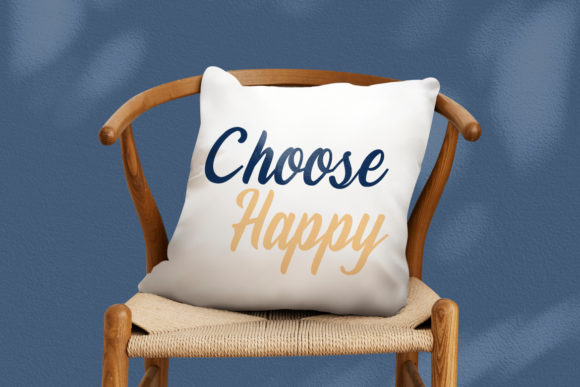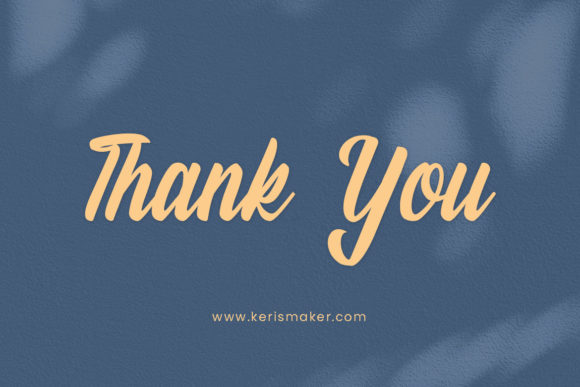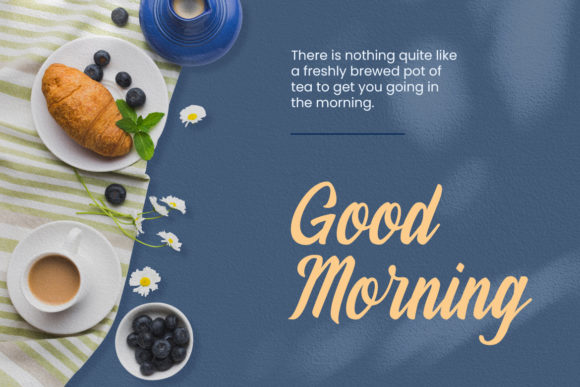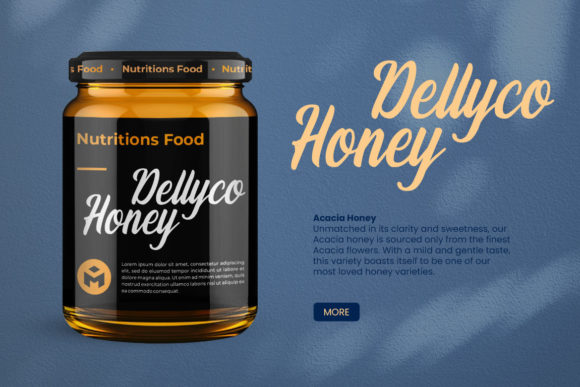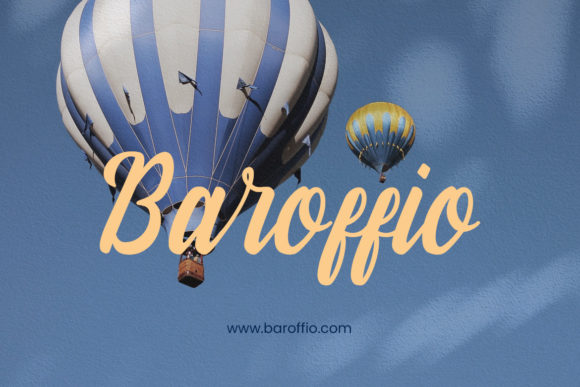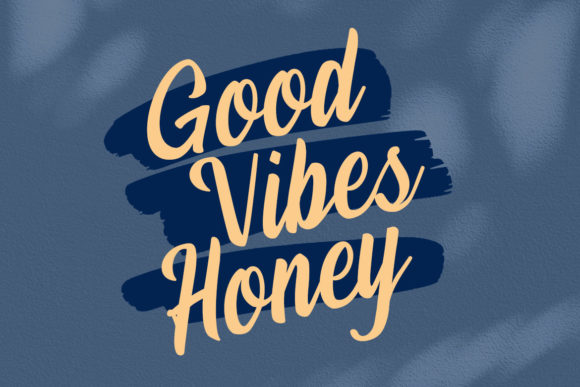
Dellyco Font
About Dellyco Font
Dellyco is a lovely and delicate script font that exudes elegance and class. This font was particularly crafted for those who need a beautiful and refreshing look to their designs.